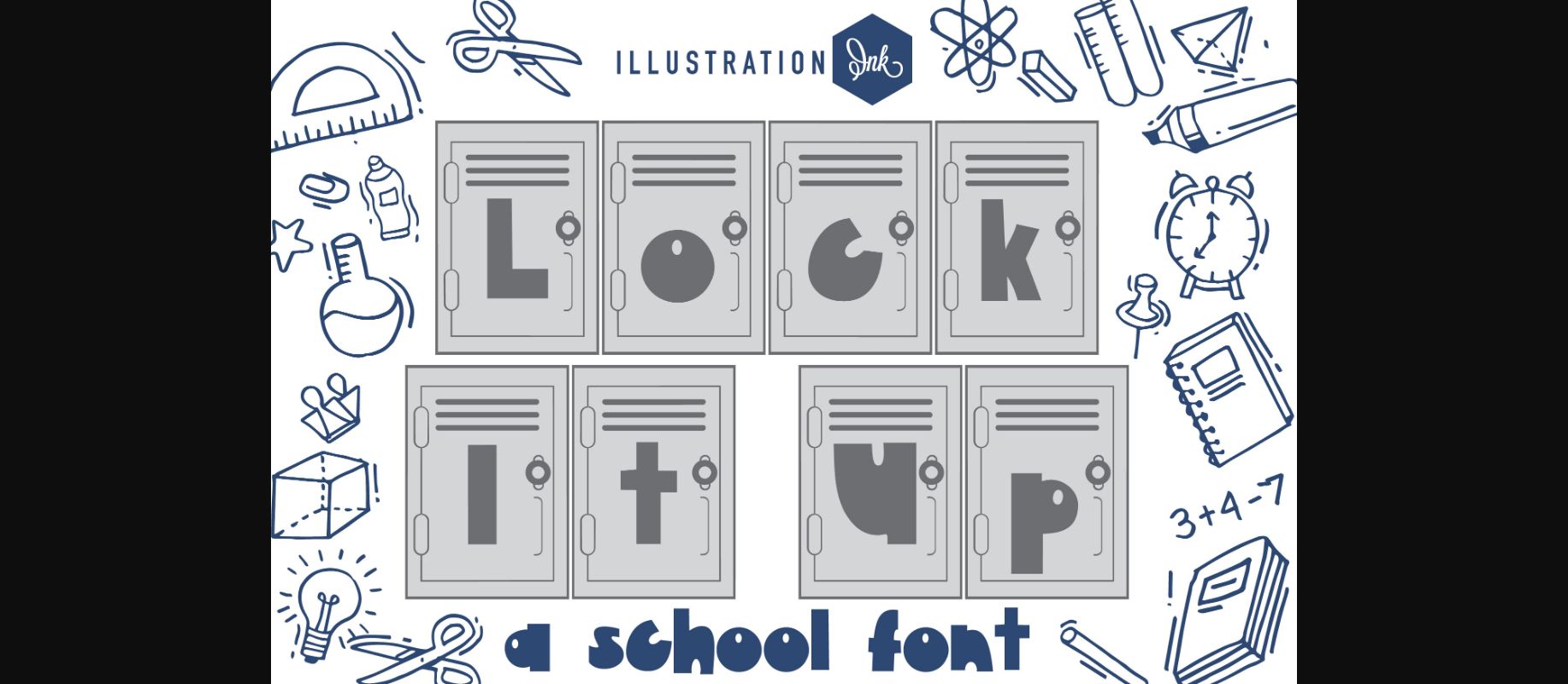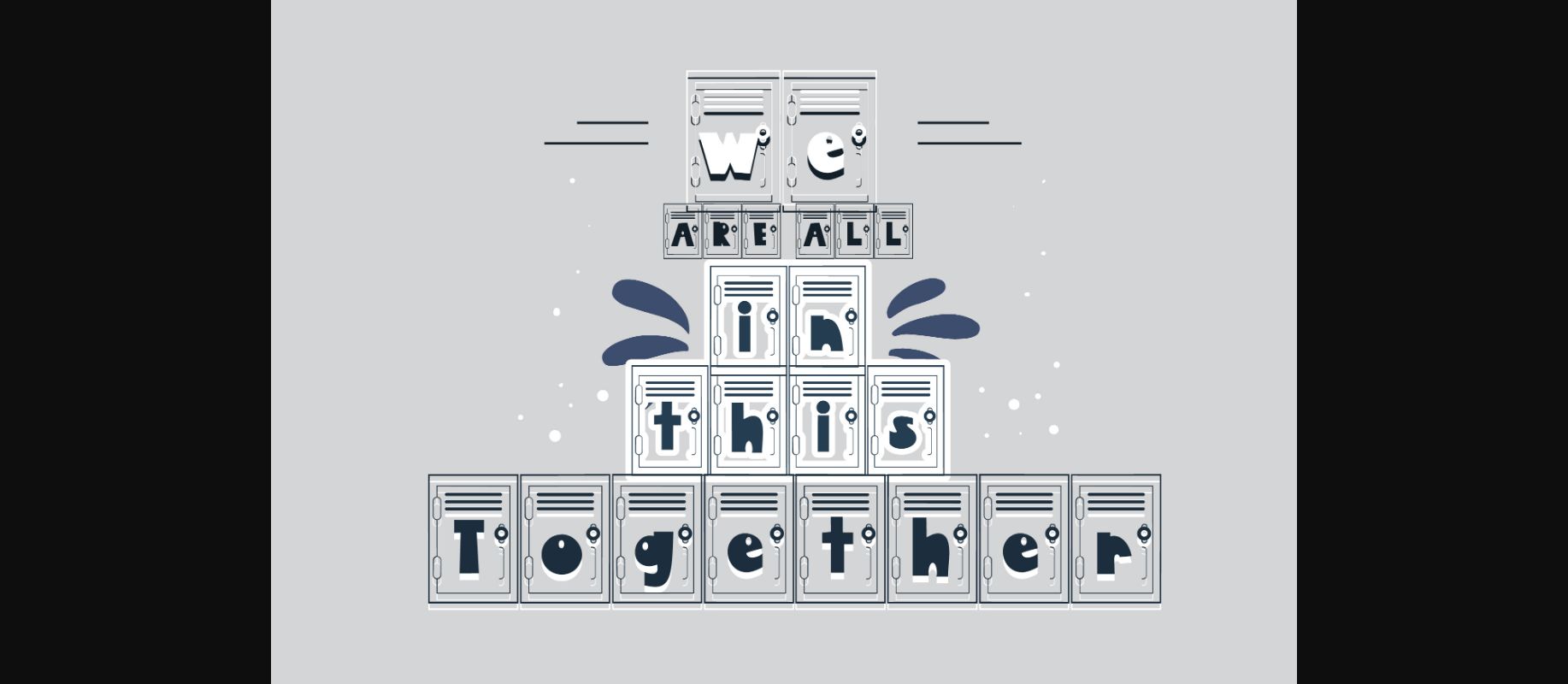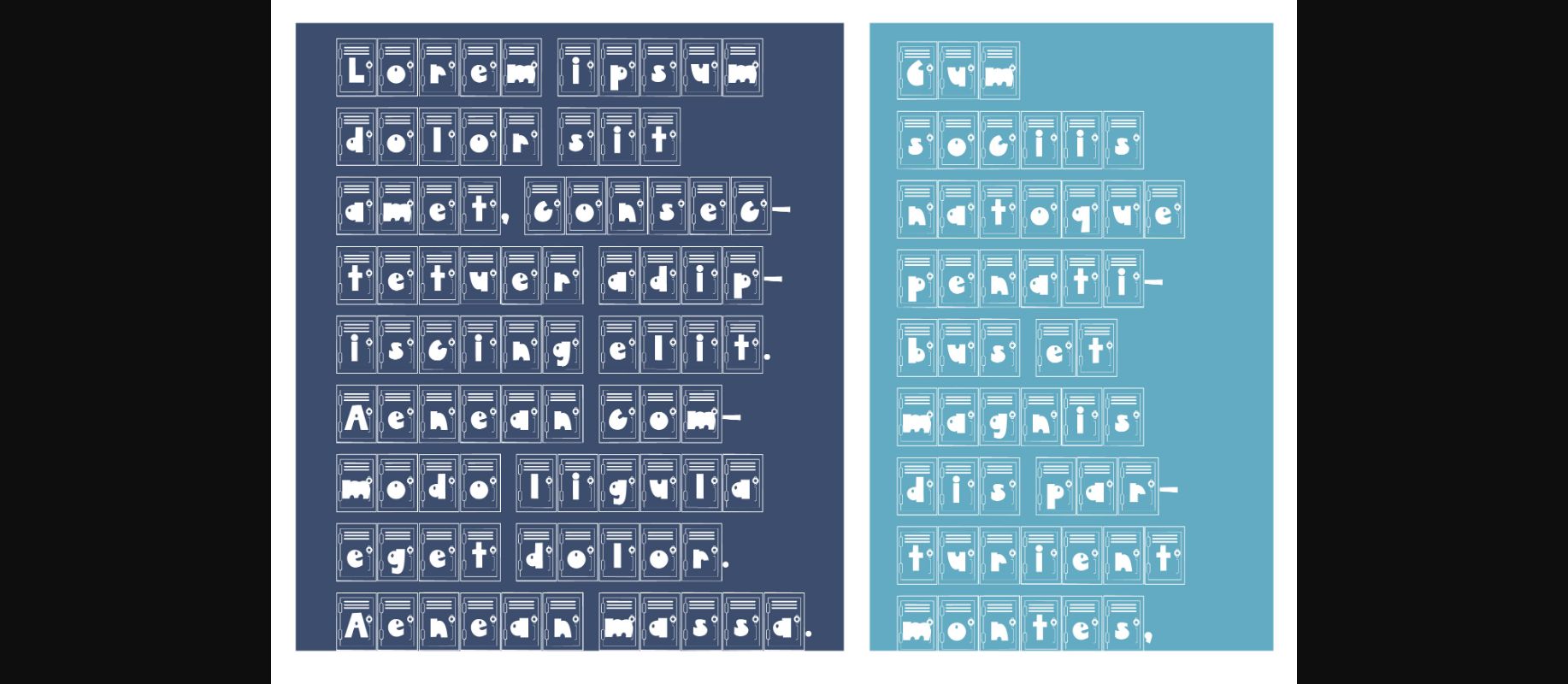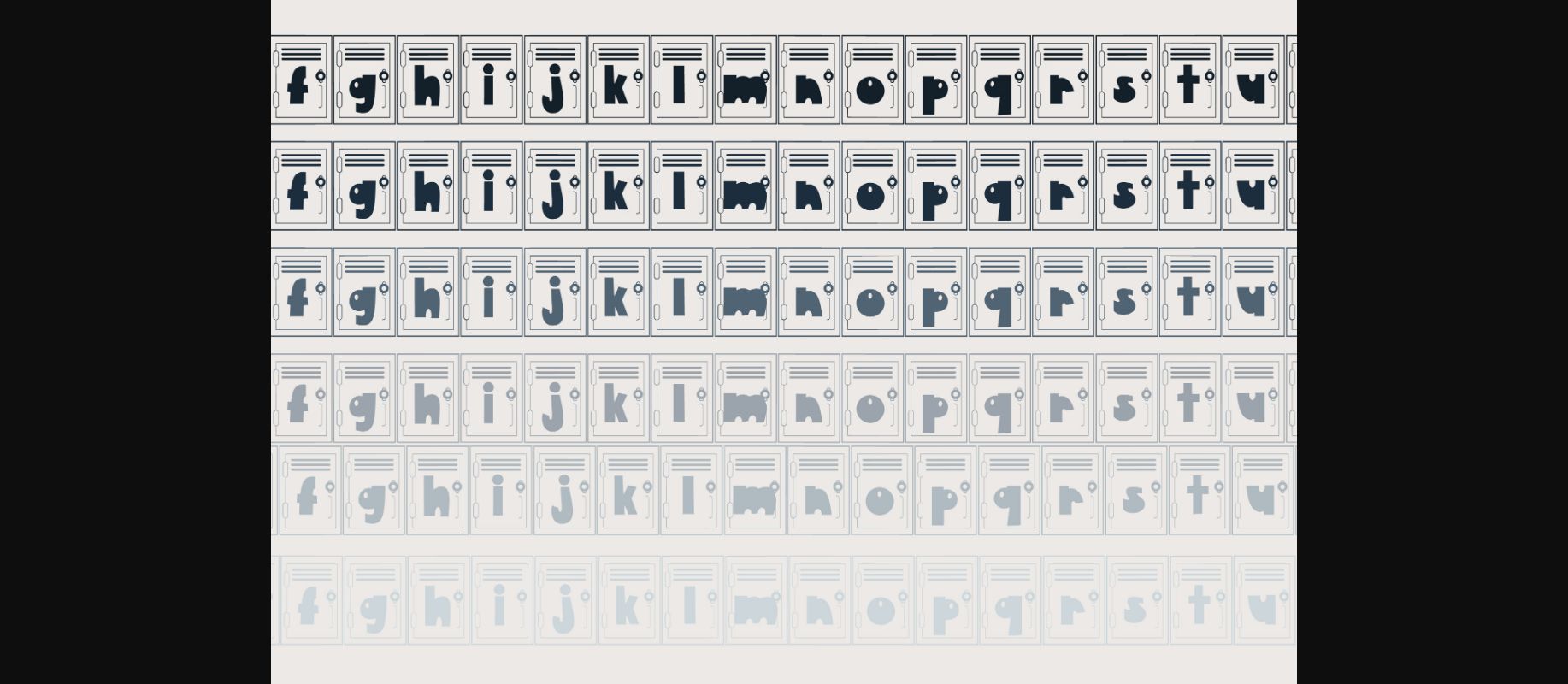
About Lock It Up Font
Lock It Up font is a charming and clever sans serif typeface that playfully arranges letters within school lockers. This nostalgic design brings a touch of scholastic nostalgia to your projects, reminiscent of passing notes and hallway conversations. Whether for educational materials or fun creations, Lock It Up adds a unique twist that’s sure to capture attention and evoke fond memories of school days.